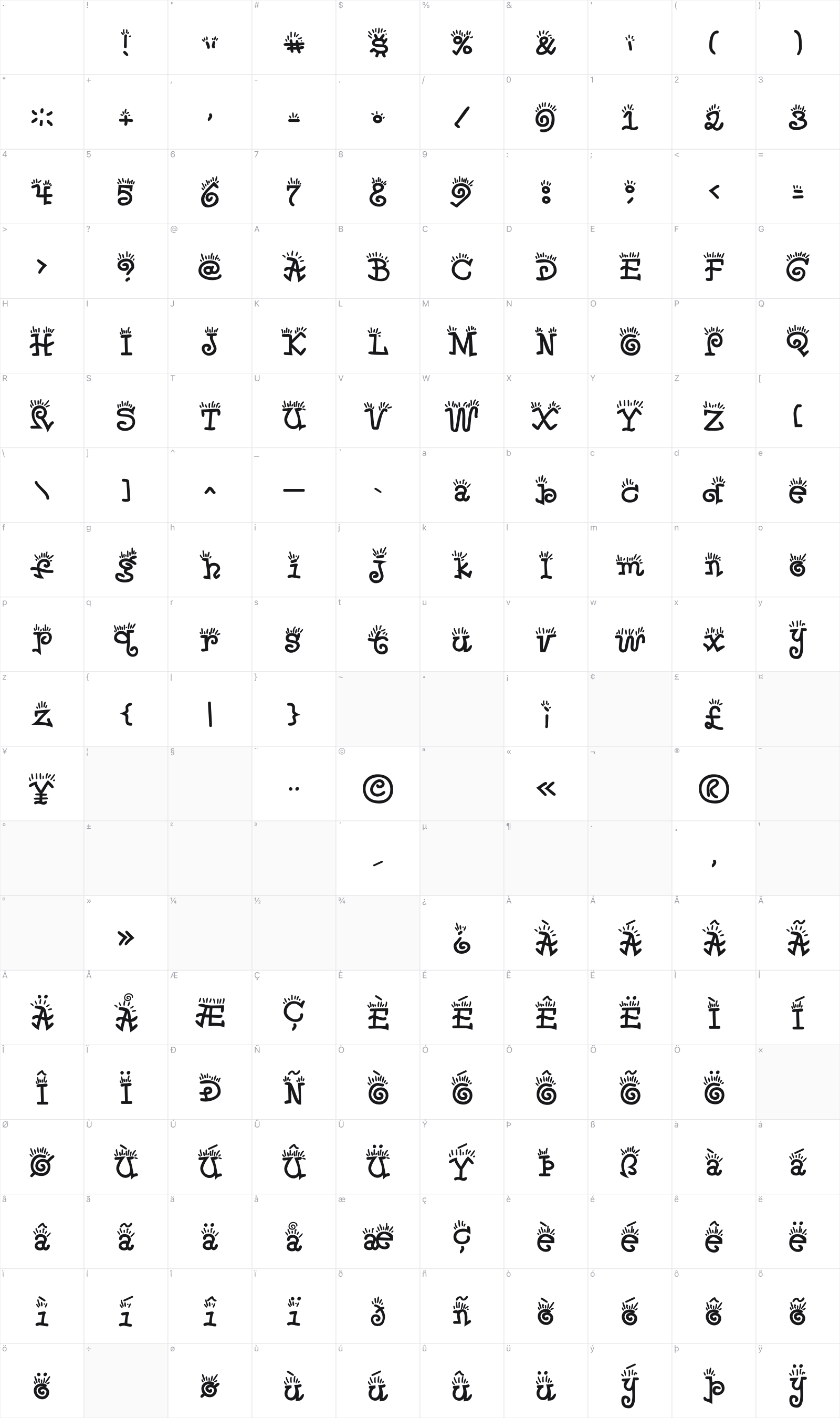
Waker
Waker is a bold, playful novelty face from Typodermic Fonts with letterforms that look like they were stamped by hand, each character carrying the slightly uneven, pressed-ink quality of a rubber stamp or potato print. The thick strokes and quirky shapes give it an immediate childlike energy, making it a natural pick for children's books, party invitations, and headlines that need to feel fun and handmade.